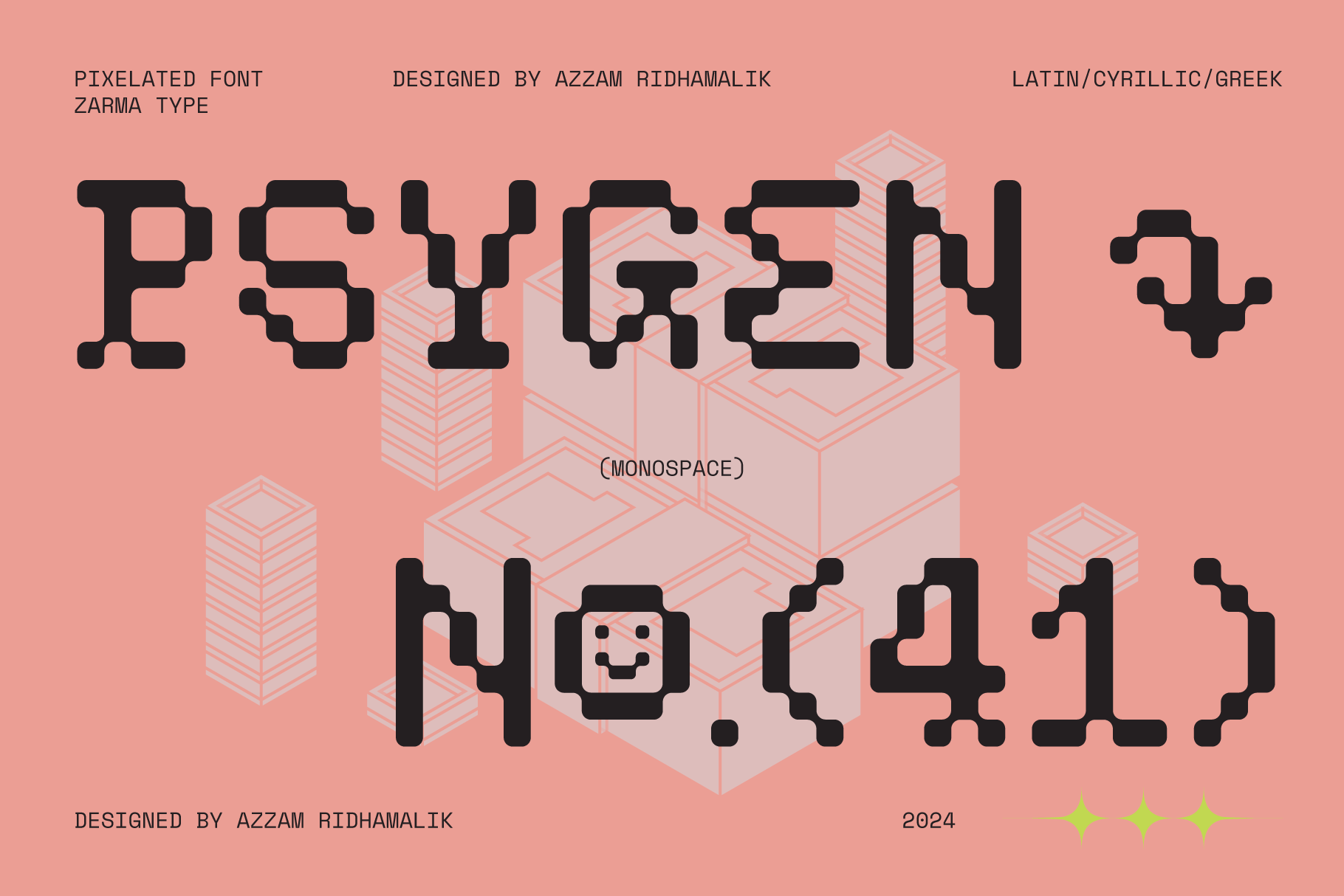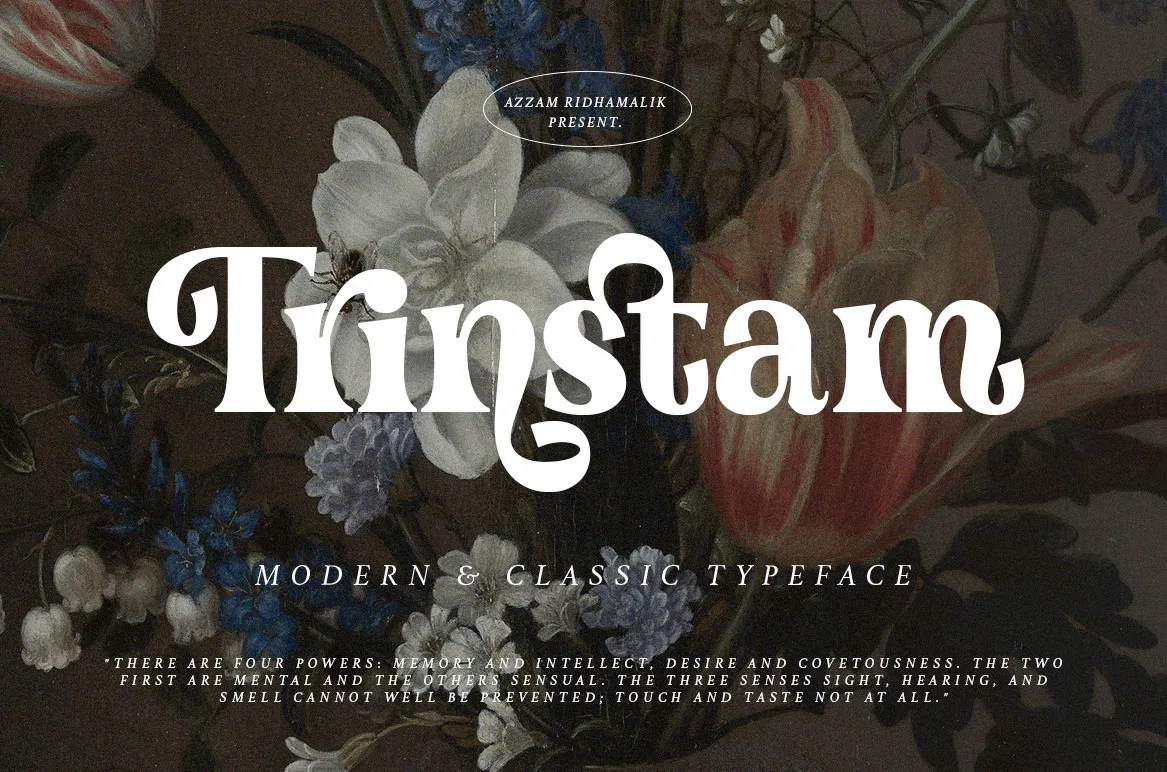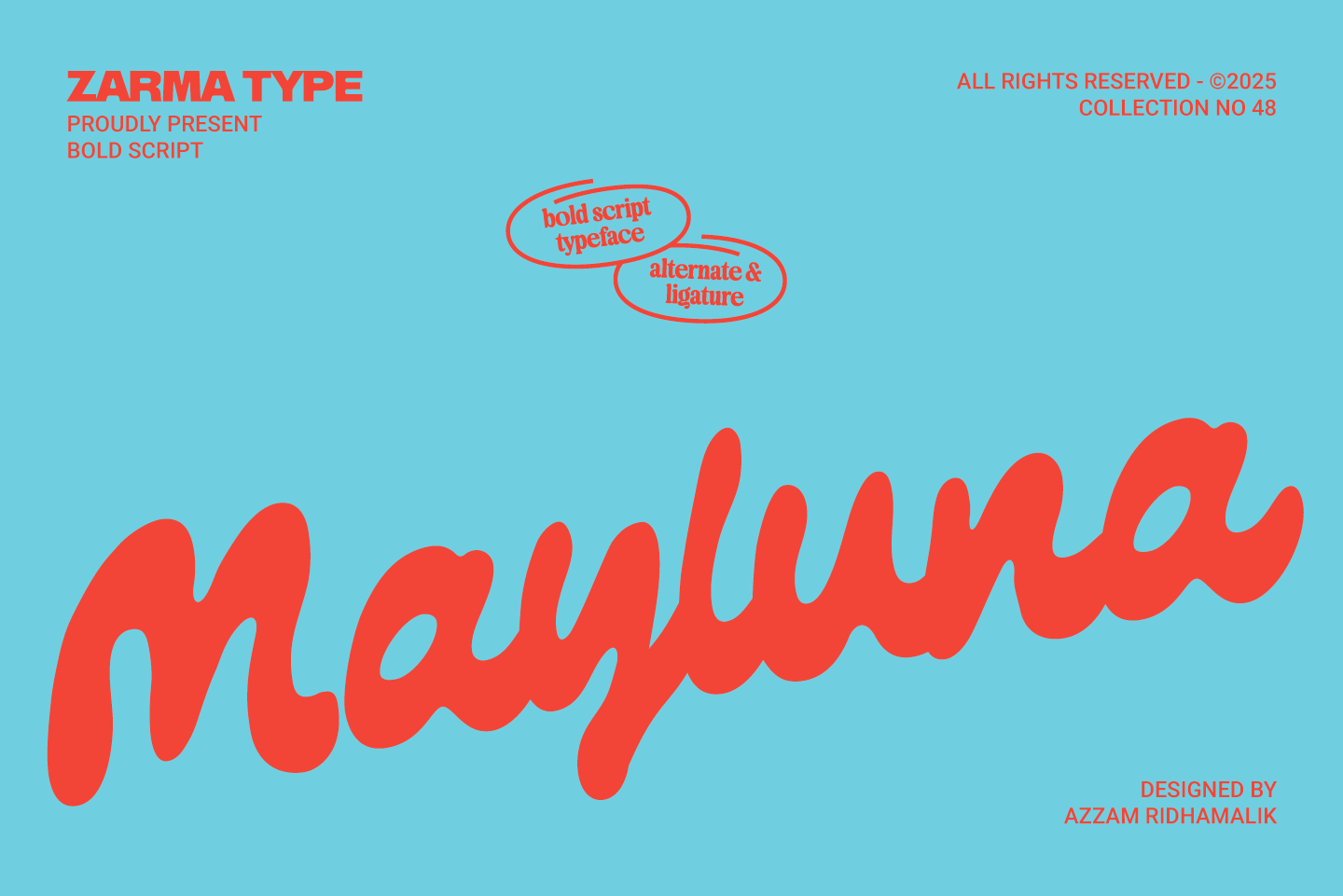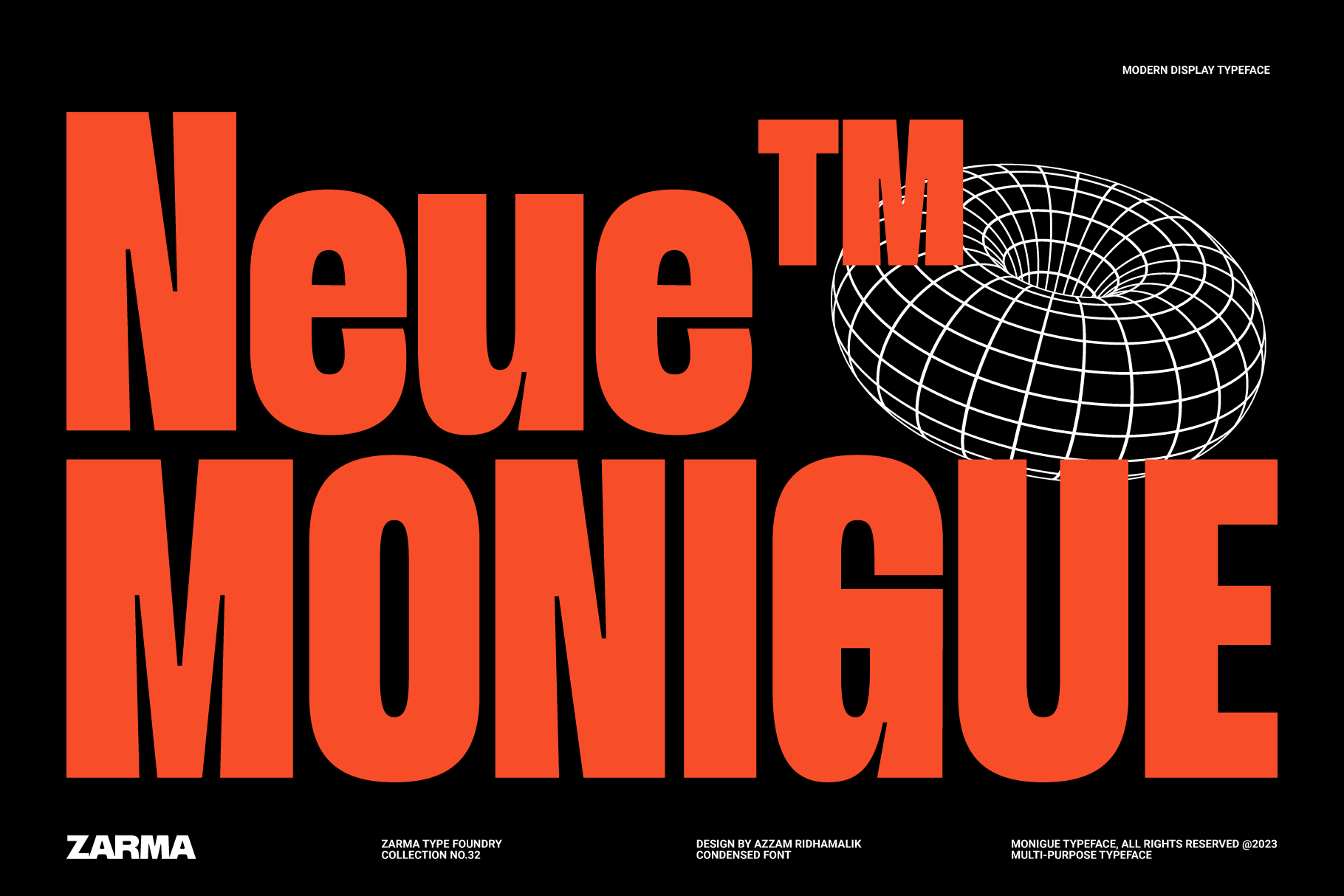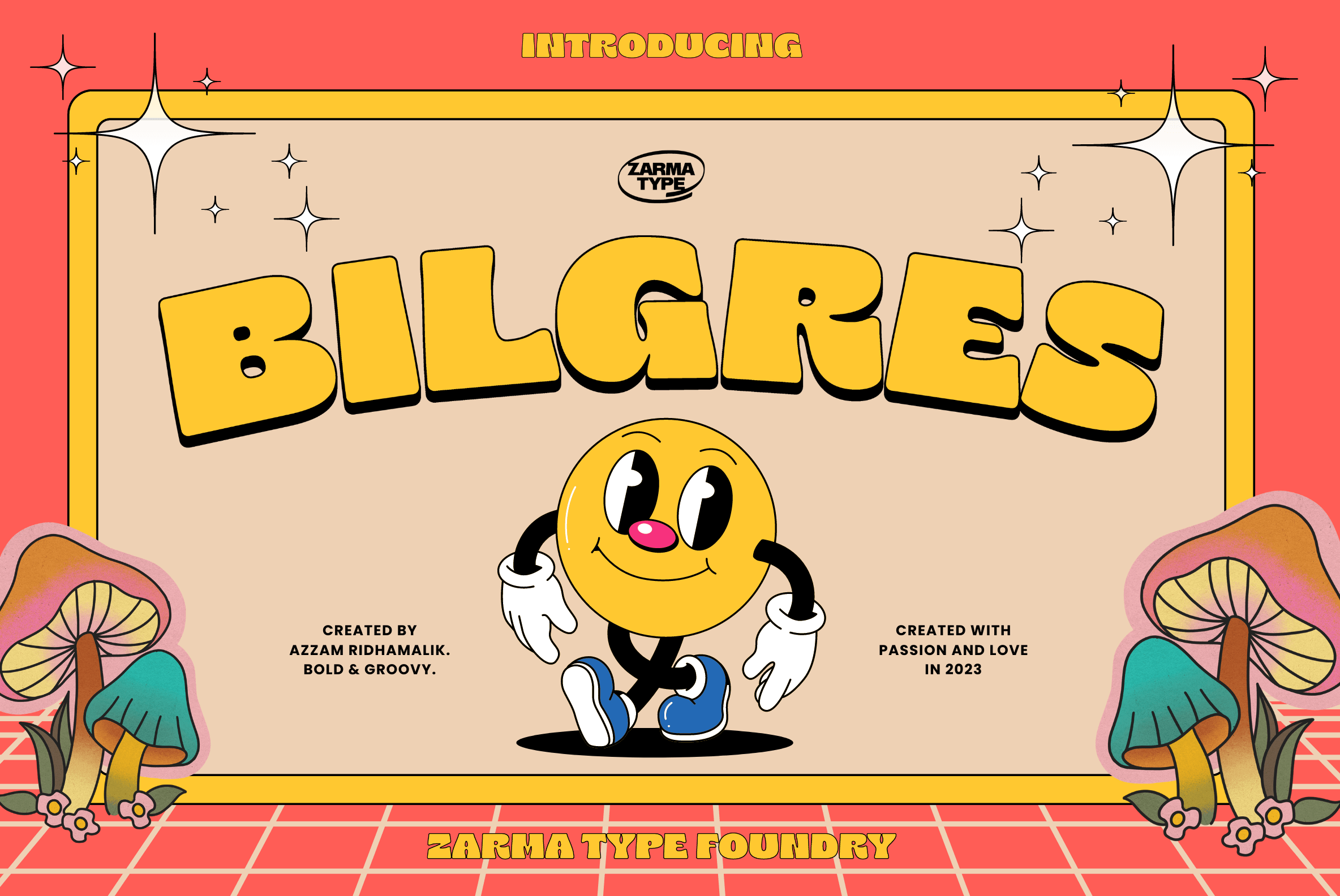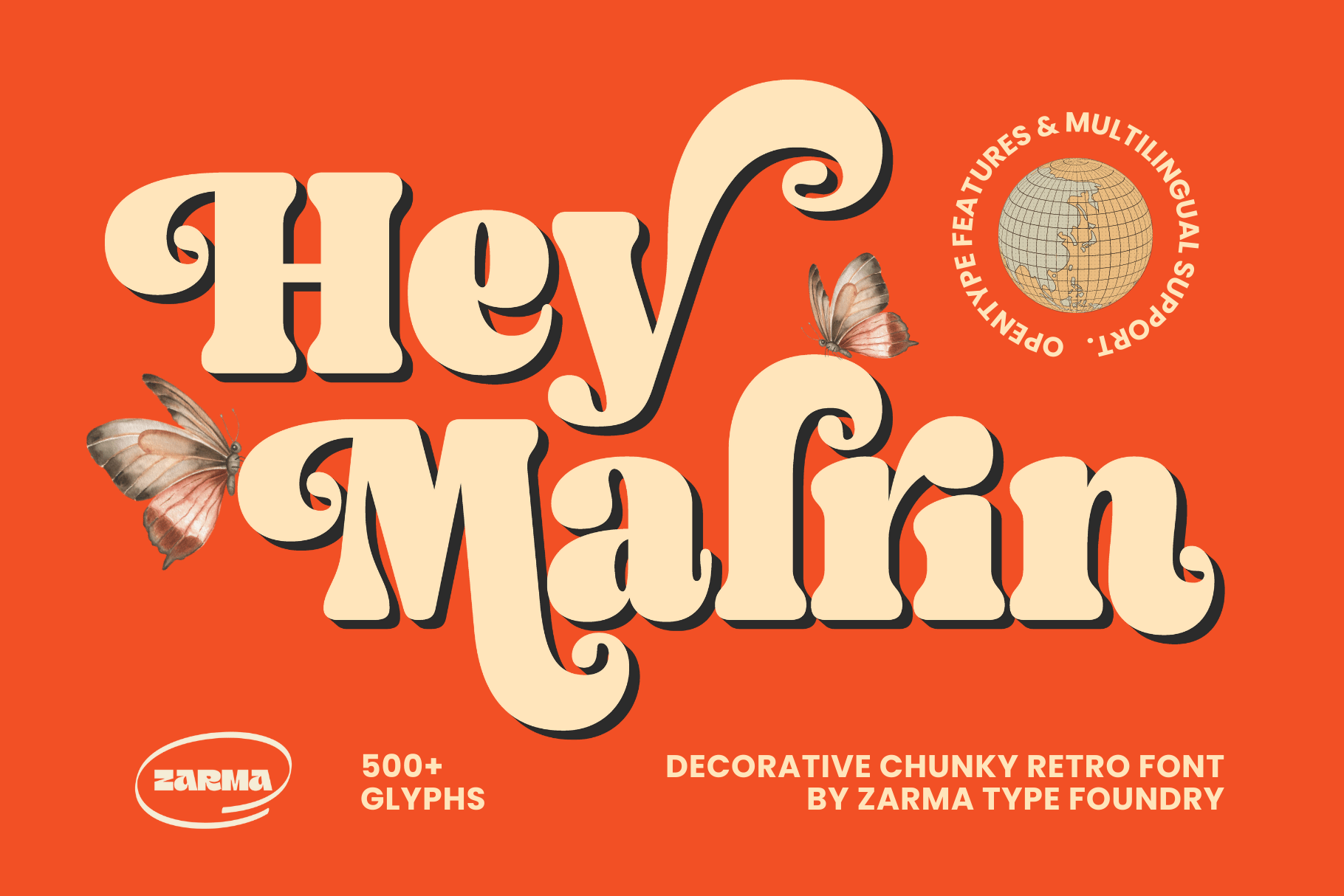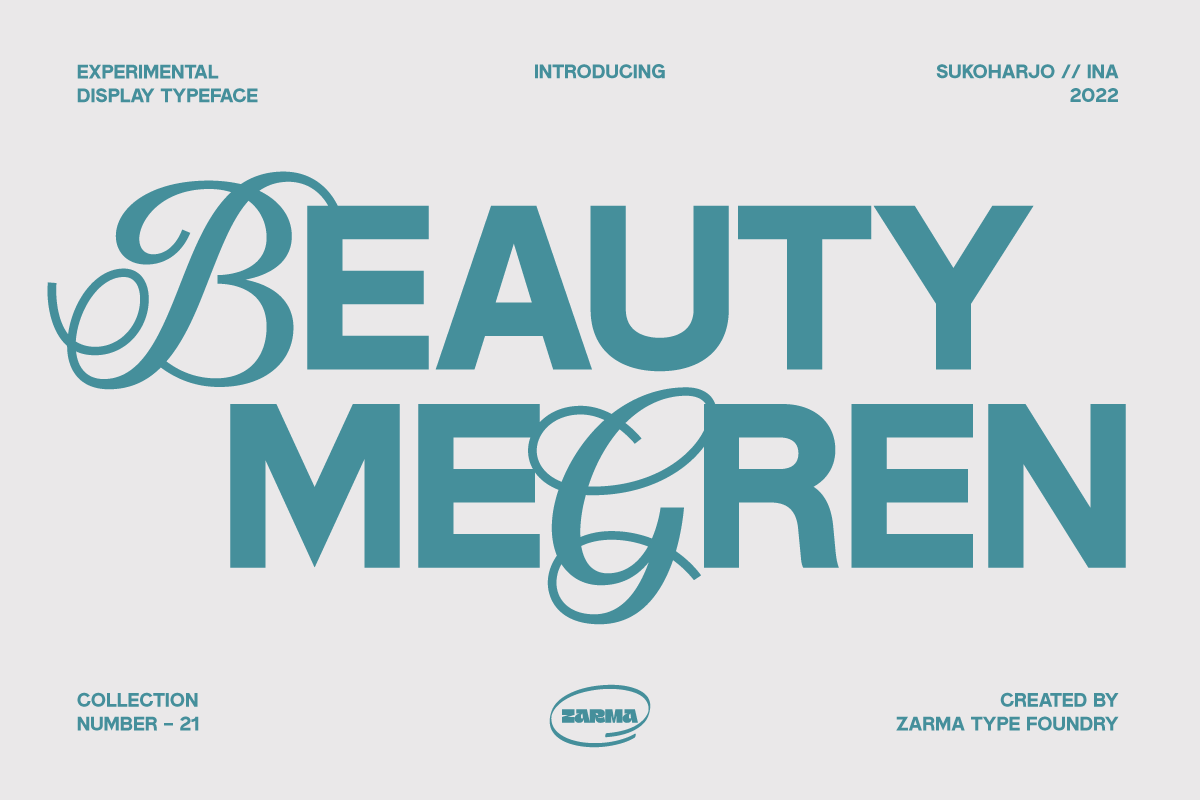
The best fonts for flyers do more than look good. They actually can pull people in. The right typeface sets the tone before anyone even reads a word, so be sure to choose a font that doesn’t just decorate, but communicates.
We’ve rounded up 20 of the ideal fonts for flyers to help your message stand out and grab attention at first glance.
Font for flyers like this fun, bubbly typeface bring retro charm with a modern twist. Its rounded, flowing letters add playful energy for youth brands and entertainment flyers with a cheerful, eye-catching touch.
Mayluna is a bold, playful font with smooth curves and a handmade feel. It mixes retro charm with a modern look, great for food and beverage brands to stand out while staying friendly and approachable.
Benniter offers both regular and outline styles, combining a retro vibe with a rough, textured look. It’s perfect for social media and creative projects that need a natural, handcrafted feel.
Here is one of the best picks of a good font for flyers with a sleek 2000s-inspired style that is perfectly used for apparel and tech service branding that brings both classical and professional vibes.
With medium thickness and tall letterforms, this one of the best fonts for flyers is easy to read. Its hand-drawn style adds a relaxed feel, perfect for travel, outdoor, country, and retro-themed flyers.
For a whimsical appearance, it features a hippie-style font with strong forms and softened corners. Its wide, standout design is great for branding handmade products, eco-friendly packaging, and retro-themed apparel.
It combines a modern touch with retro style by the clean strokes and smooth curves. Balney brings a relaxed summer feel while staying polished for resort, lifestyle, fashion, and food & beverage branding.
Packed with character, it’s the best font to use for flyers, especially for vintage movie themes or old garage-style designs. It brings a slightly psychedelic vibe with its bold, chunky retro look.
This typeface is a trendy, fashionable, and slightly nostalgic blend of elegant script and clean sans serif. Perfect for eye-catching fashion and wedding organizer flyers that need to look both fresh and timeless.
Apestron is a sleek sans-serif font with a clean, modern look that is perfect for futuristic-themed flyers by giving a high-tech feel while still keeping things clear and easy to read.
Featured with a bold, monospace pixel font, this is one of the best fonts for flyers that bring a great style for gaming and digital media flyers with a tech-forward vibe.
Definitely the best fonts for flyer design! It comes with ligatures, stylistic sets, and multilingual support that is a great choice for luxury product flyers, invitations, or anything with a refined, high-end look.
Perfect for coffee shop promotion and branding that want to stand out with a fun, vintage feel. This squarish, chunky typeface brings a bold retro vibe with a modern twist.
Make your projects stand out with this striking, contemporary typeface! Its unique shapes and subtle serifs add character and style, perfect for standout, professional-looking visuals for lifestyle product flyers.
Give your clothing brand flyers a stylish edge with this modern-meets-classic serif typeface. Bold, clear, and versatile, it works beautifully in both large headlines and smaller text.
Manteman is a top pick among the best fonts for flyer that need a retro yet polished feel. It looks good for any apparel flyers by giving a classic touch.
This eye-catching sans serif display typeface makes strong minimalism come to life. Chunko brings a confident and clean look for modern food and beverage branding or social media graphic designs.
This font has a crisp, contemporary appearance by combining geometric and monospace elements. It’s a great fit for furniture or architecture flyer designs that need a sleek and professional touch.
Morning Grown’s wavy strokes and fun, irregular shapes provide your organic product branding, event flyers, or vintage festival posters a charming and lively vibe.
Moldin features carefully tuned spacing and industrial-inspired geometry. With its bold, modern look, it’s perfect for sports branding and digital media that need a confident presence.